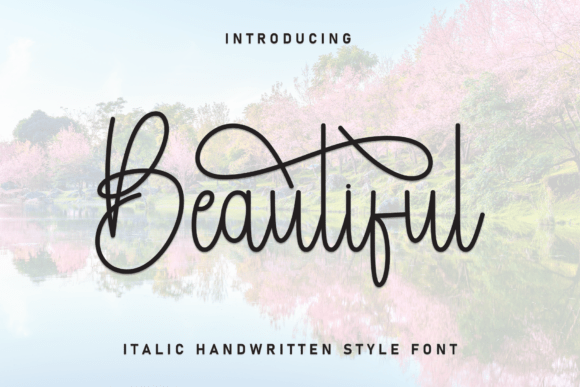
Discover the Timeless Charm of Beautiful Alphabet Font
Have you ever found yourself lost in a sea of fonts, searching for the perfect one to bring your creative vision to life? It’s a feeling we’re all too familiar with. But what if we told you that the perfect font is just a click away? Enter Beautiful Alphabet Font, a stunning handwritten font that adds an elegant touch to any project.
This beautiful font is more than just a pretty face – it’s a versatile tool that’s perfect for designers looking to add a touch of sophistication to their work. Whether you’re creating a wedding invitation, a logo, or a social media graphic, Beautiful Alphabet Font is sure to make your designs stand out. With its distinct and timeless style, it’s no wonder why designers are falling in love with this font.
- Unique Characteristics: Hand-drawn, cursive script with elegant flourishes and subtle texture, making it perfect for invitations, wedding stationery, and other special occasions
Designer Review: Beautiful Alphabet Font
Overall, I was impressed by the elegance and sophistication of the Beautiful Alphabet Font. ✨ The font’s clean lines and rounded edges give it a soft, yet modern feel that works well for a variety of design projects.
The font’s versatility is another major plus. ✨ It can be used for both digital and print projects, and its legibility makes it a great choice for body text as well as headlines. Additionally, the font’s subtle nuances make it perfect for adding a touch of personality to your designs.
Here are a few things that I liked about the font:
- It’s highly customizable, allowing you to adjust the size, color, and spacing to suit your design needs.
- The font is available in a range of weights, from light to bold, giving you plenty of options for creating contrast and visual interest.
- The font’s subtle flourishes add a touch of whimsy and personality to your designs.
- ⚠️ The font may not be as suitable for projects that require a lot of emphasis or bold typography.
- ⚠️ The font’s subtlety may make it difficult to read in certain situations, such as at small sizes or in low-light environments.
Overall, I would highly recommend the Beautiful Alphabet Font for designers who want a versatile and elegant font that can add a touch of sophistication to their projects. While it may not be suitable for every project, it’s definitely worth considering for those looking for a high-quality font that can help take their designs to the next level.
The Beautiful Alphabet Font is ideal for:
Children’s book illustrations and design
Food and beverage branding and packaging
Event and party invitations and design